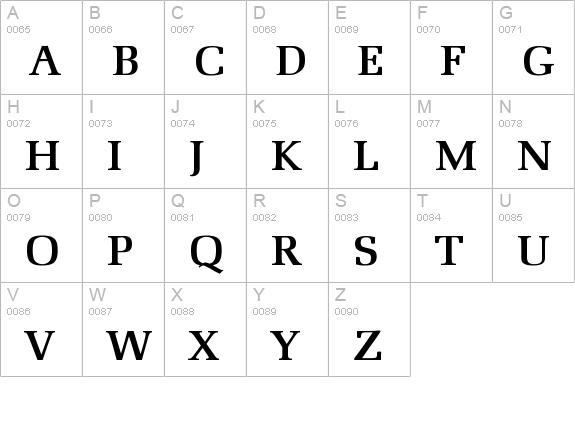
MarseilleSerial-Bold Font Details
MarseilleSerial-Bold is a strong, high-contrast variant in the MarseilleSerial typeface family \xE2\x80\x94 well suited to headlines, attention-grabbing titles, and strong calls-to-action.
MarseilleSerial-Bold is a bold and impactful font that exudes confidence and strength. Its striking appearance makes it perfect for headlines, titles, and other attention-grabbing design elements. The thick strokes and sharp edges of MarseilleSerial-Bold give it a modern and edgy look that is sure to make a statement. The best part? MarseilleSerial-Bold is available for free download at FontsMarket.com! This means you can easily access this versatile font for all your design projects without any cost. Whether you're working on a poster, logo, or website, MarseilleSerial-Bold is a great choice to add a touch of boldness and style to your creations. Download MarseilleSerial-Bold today and elevate your designs with this powerful font.